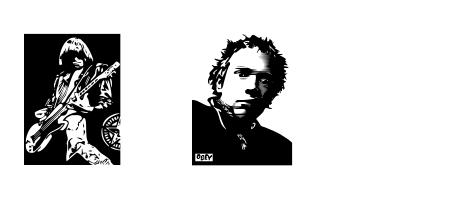
ObeyRockers
ObeyRockers: A rebellious roar in typeface. Sharp edges and aggressive angles mirror the punk spirit, a defiant shout against the mundane. Ink-stained rebellion, dripping with attitude, perfect for proclaiming your nonconformity. Its raw energy electrifies any design.